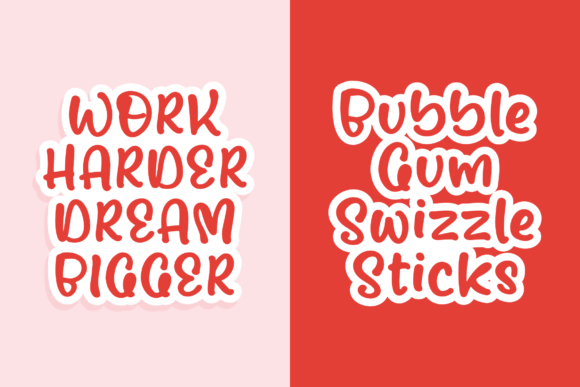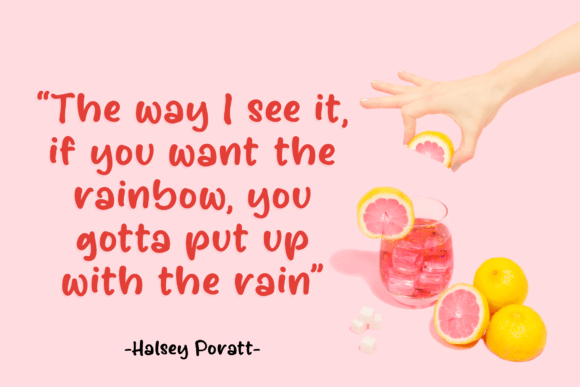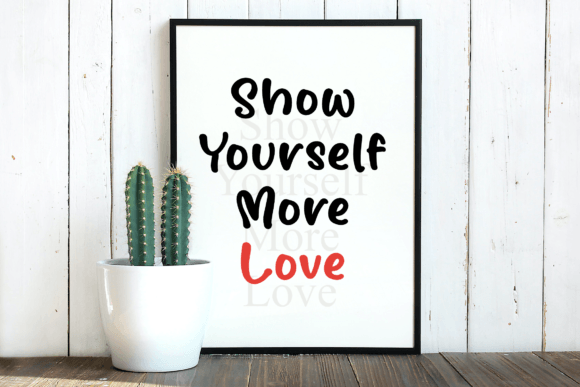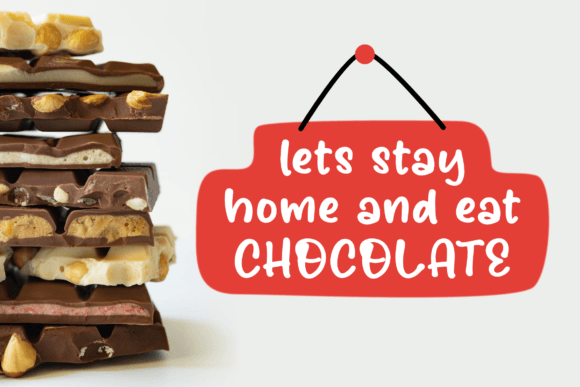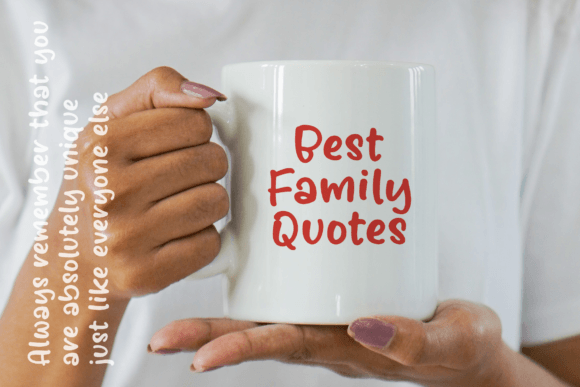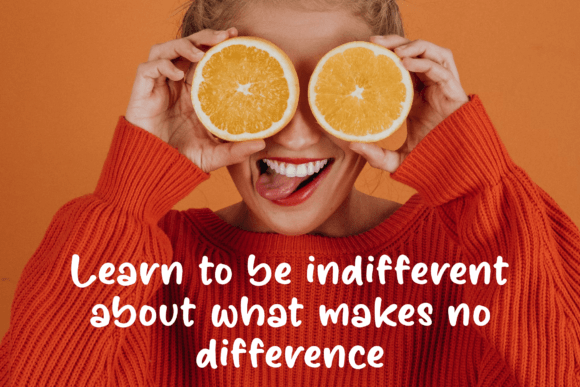
Introduction to Childkiss Heart Font
Remember the moment when you stumbled upon the perfect font for your creative project? The one that made your design come alive, and you couldn’t wait to share it with the world? For designers, finding that elusive font can be a game-changer, and that’s exactly what the Childkiss Heart Font offers – a groovy handwritten font that’s perfect for a wide range of projects.
With its beautiful script taste, the Childkiss Heart Font is an excellent resource for designers who want to add a touch of elegance and whimsy to their work. Whether you’re creating logos, branding projects, or homeware designs, this font is sure to impress. Its versatility and high-quality design make it a valuable asset for any design project, and the best part? It’s available for free download, complete with a transparent background for easy integration into your designs.
Key Features of Childkiss Heart Font
- Unique, hand-drawn design ideal for creative projects and personal use
- High-quality, transparent background for seamless integration into designs
- Characteristics include delicate lines, subtle texture, and a touch of whimsy
- Designed to be versatile and suitable for a range of design styles and themes
Honest Review: Childkiss Heart Font
I recently had the chance to work with the Childkiss Heart Font, and I must say it’s a lovely addition to any design project. This free download offers a unique, high-quality design resource perfect for creative projects that require a touch of whimsy.
What works well: ✨ The font is incredibly versatile and can be used for a wide range of applications, from children’s book covers to wedding invitations. The transparent background makes it easy to customize and combine with other design elements. The font’s playful, handwritten feel is perfect for adding a personal touch to any project.
Here are some key features of the Childkiss Heart Font:
- High-quality design with a transparent background
- Perfect for creative projects, including children’s books, wedding invitations, and more
- Unique, handwritten feel
Limitations: ⚠️ The font is a bit limited in terms of its character set, which may make it less suitable for longer texts or formal documents. Additionally, the font’s playful feel may not be suitable for all design projects.
Overall, I’m impressed with the Childkiss Heart Font and would recommend it to designers looking for a unique, high-quality design resource for their creative projects.
The Childkiss Heart Font is a free download design resource ideal for creative projects that require a high-quality, visually appealing font. With its transparent background, this font can be easily layered over images or used as a standalone element in your design.
To get started, you can use the Childkiss Heart Font in a variety of applications, including:
In PowerPoint and Word, you can use the font in your presentations and documents. Simply select the font from the font library and start typing.
The Childkiss Heart Font is ideal for a variety of creative projects, including:
- Valentine’s Day and holiday cards
- Gift tags and labels
- Party decorations and signage
Tips for Getting the Most Out of the Childkiss Heart Font
To get the most out of the Childkiss Heart Font, try the following tips:
- Use the font in conjunction with other design elements, such as images and shapes.
- Experiment with different font sizes and styles to add visual interest.
- Use the font in a variety of creative projects, such as invitations, cards, and gift tags.
Alternatives to Childkiss Heart Font
1. Sugar Cookie Font
The Sugar Cookie Font is a playful, cursive font perfect for creative projects, such as wedding invitations or children’s book illustrations. It features a high-quality, transparent background design, making it ideal for use on various backgrounds. When to use: For whimsical, romantic designs or family-related projects. Comparison to Childkiss Heart Font: Sugar Cookie Font has a more delicate, intricate design compared to Childkiss Heart Font’s bold, childlike feel.